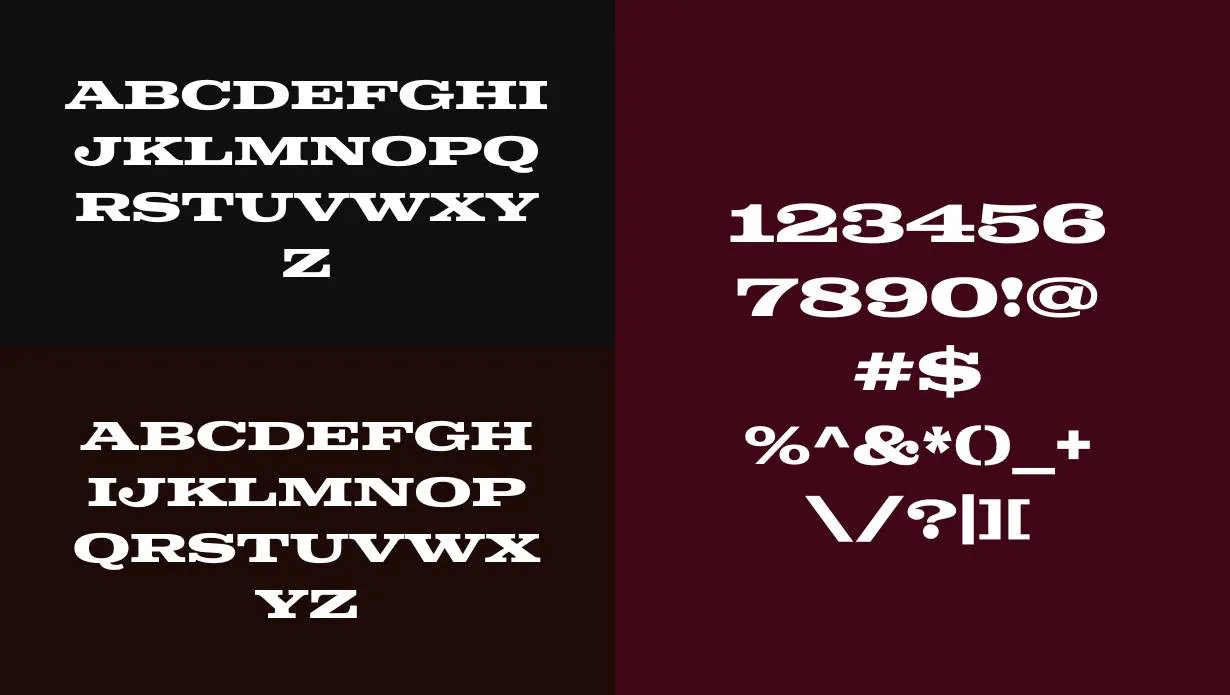
Colt Font is a timeless typeface that is easy to read and perfect for a variety of design purposes. Its sleek lines and enduring style make it a smart option for branding, editorial design, and projects that prioritize clarity and accessibility.
| Name | Colt Font |
| Designer | Mattox Shuler |
Colt Font Family